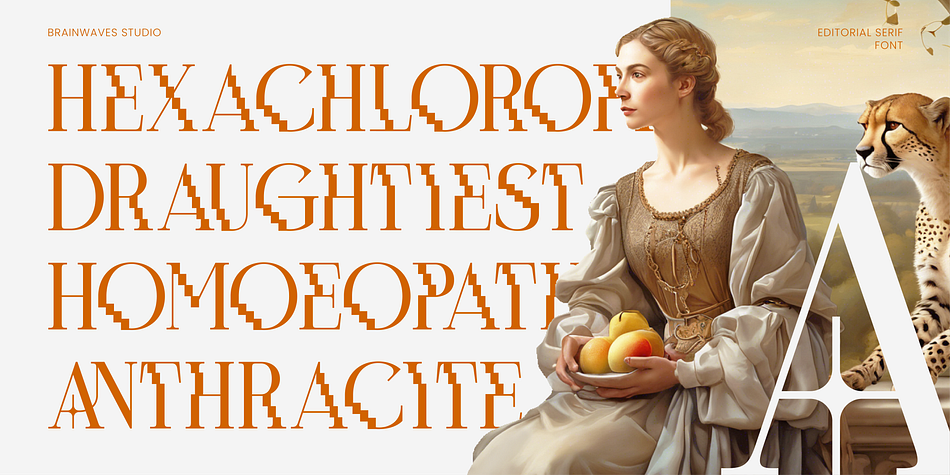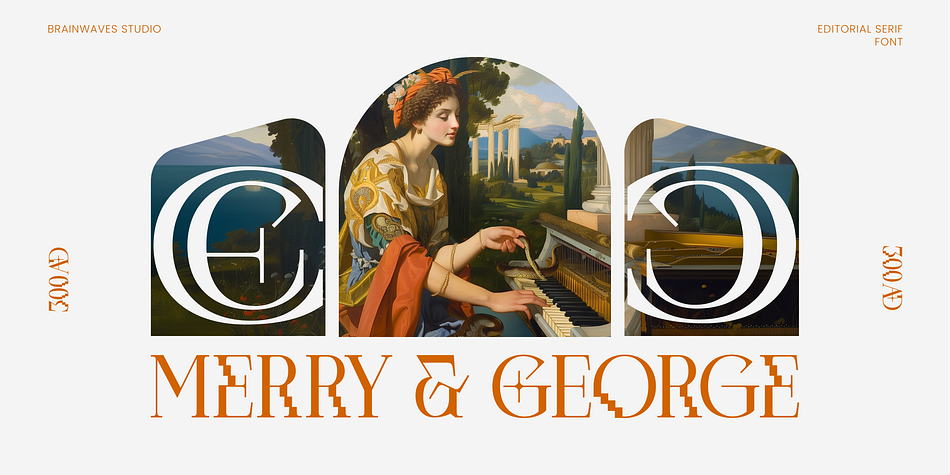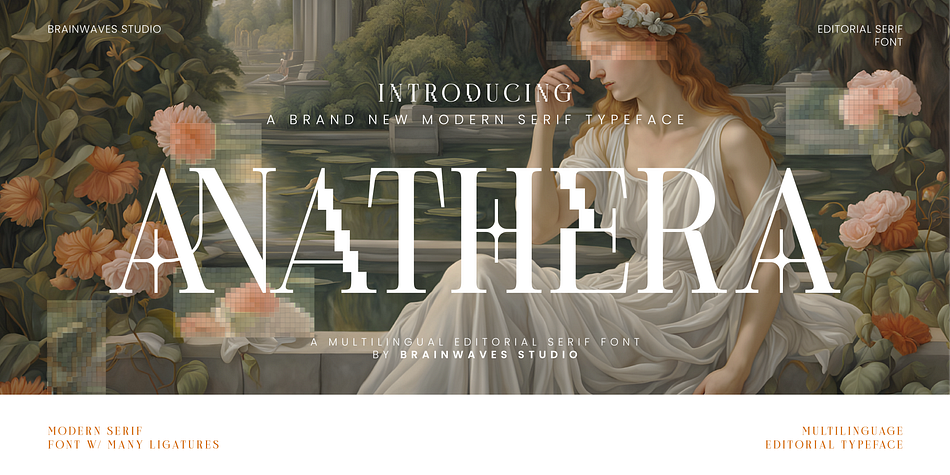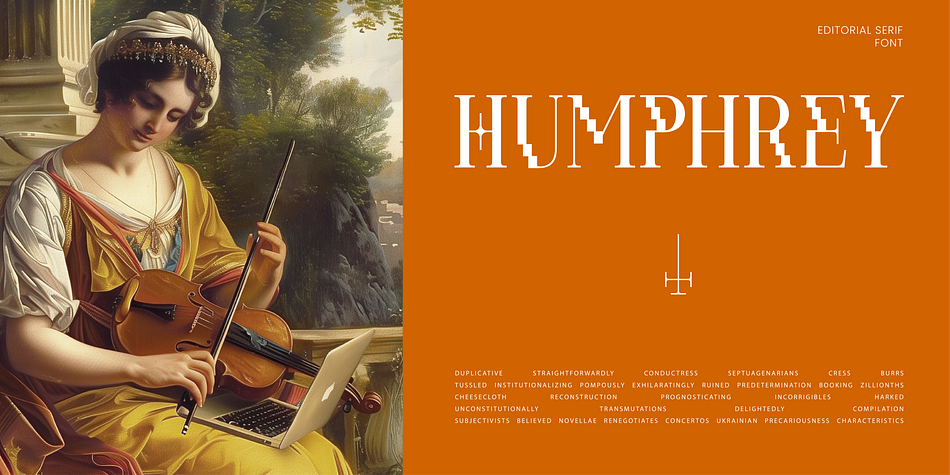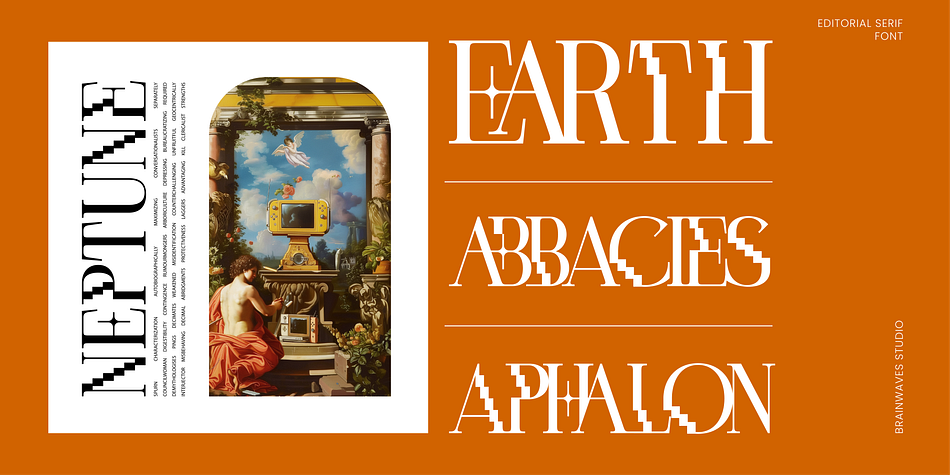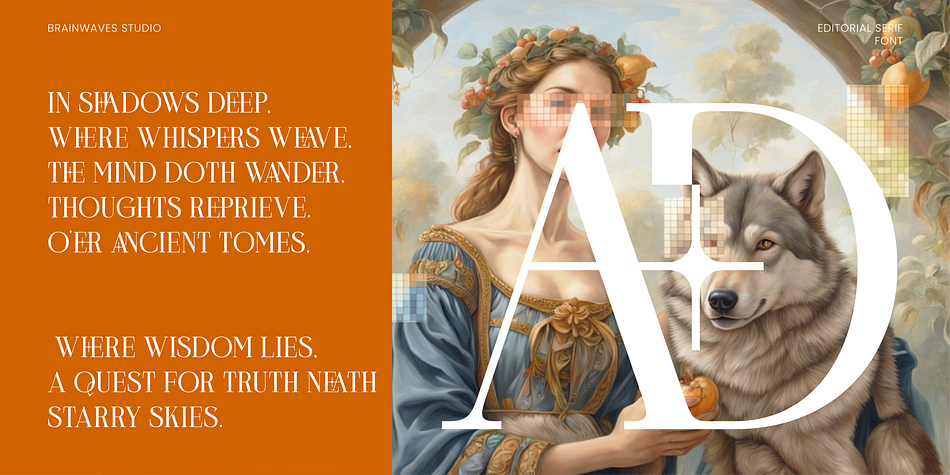
Anathera
Designed by Elhaq Farid, Anathera is a display serif and pixel font family. This typeface has two styles and was published by Brainwaves Studio.
Anatera Editorial Serif is an audacious typeface that redefines the boundaries of modern design. With its bold serif structure and minimalist flair, it commands attention and makes a statement. Ideal for those who push creative limits, this typeface is perfect for edgy posters and graphic design projects that demand a touch of sophistication without sacrificing attitude. Its sharp lines and distinctive details add an edge to any design, ensuring your work stands out in a sea of the ordinary. Embrace the power of Anatera Editorial Serif to make your visuals unapologetically compelling.